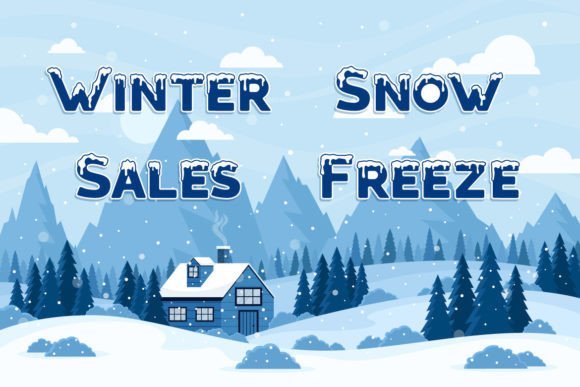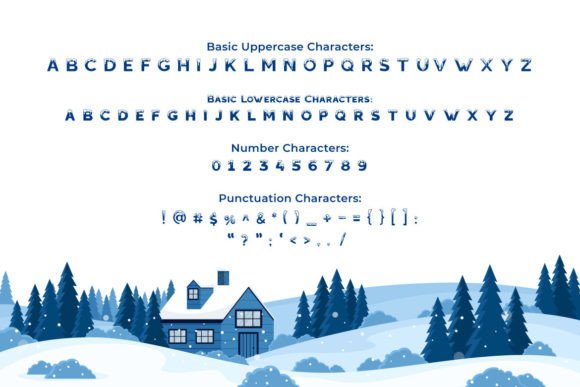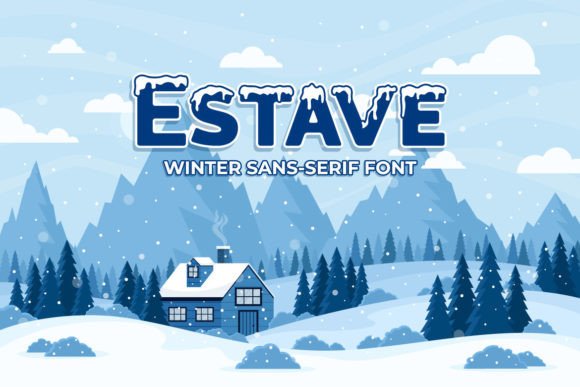
Introducing Estave Font: The Coolest Display Font for Winter and Christmas Projects
Are you looking for a unique and eye-catching font to elevate your winter or Christmas-themed projects? Look no further than Estave Font! This cool and distinctive display font is sure to add a touch of frosty magic to your designs. With its icy characters and sleek aesthetic, Estave Font is the perfect choice for designers and crafters looking to create something truly special.
What Makes Estave Font So Special?
Estave Font is a one-of-a-kind display font that boasts a frosty, wintery feel that’s perfect for the holiday season. Its unique characters are designed to evoke the chill and wonder of snow and ice, making it an ideal choice for projects that require a touch of seasonal flair. Whether you’re working on a Christmas card, a winter-themed invitation, or a festive holiday poster, Estave Font is sure to add a dash of cool, wintery style.
Key Features of Estave Font
- Unique and eye-catching design: Estave Font features frosty, icy characters that are sure to grab attention and add a touch of winter wonder to your projects.
- Perfect for winter and Christmas projects: With its seasonal aesthetic, Estave Font is ideal for designers and crafters working on holiday-themed projects.
- High-quality and versatile: Estave Font is a high-quality font that’s perfect for a wide range of design applications, from digital projects to print materials.
- Easily customizable: Estave Font is easy to customize, allowing you to adjust the font to suit your specific design needs.
Design Tips and Inspiration
To get the most out of Estave Font, try pairing it with other winter-themed design elements, such as snowflakes, pinecones, or holly. You can also experiment with different font colors and textures to add depth and interest to your designs. For inspiration, check out some of the amazing projects created with Estave Font, from festive holiday cards to stunning winter landscapes.
Benefits of Using Estave Font
So why choose Estave Font for your winter and Christmas projects? Here are just a few benefits of using this amazing display font:
- Adds a touch of winter wonder: Estave Font is sure to add a dash of magic and wonder to your winter and Christmas projects.
- Stand out from the crowd: With its unique and eye-catching design, Estave Font is sure to help your projects stand out from the crowd.
- Perfect for seasonal designs: Estave Font is specifically designed for winter and Christmas projects, making it the perfect choice for designers and crafters looking to create seasonal designs.
In conclusion, Estave Font is a cool and unique display font that’s perfect for winter and Christmas-themed projects. With its frosty characters and sleek aesthetic, Estave Font is sure to add a touch of magic and wonder to your designs. So why wait? Download Estave Font today and start creating amazing winter and Christmas projects that will leave a lasting impression!